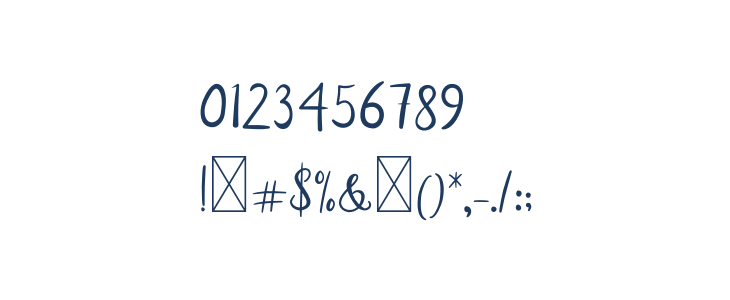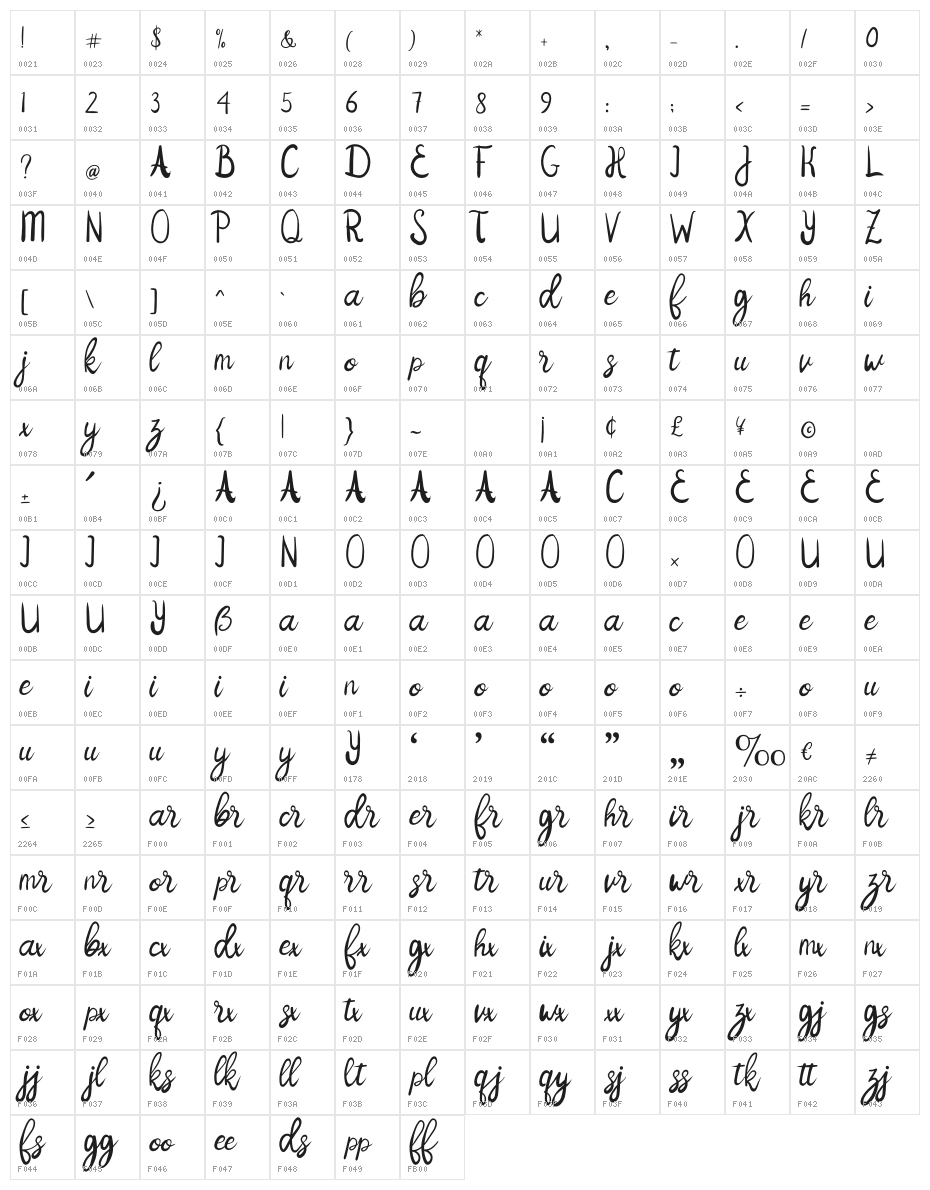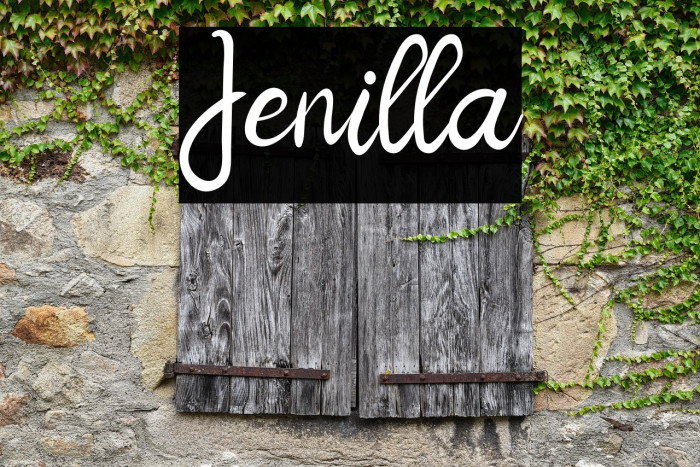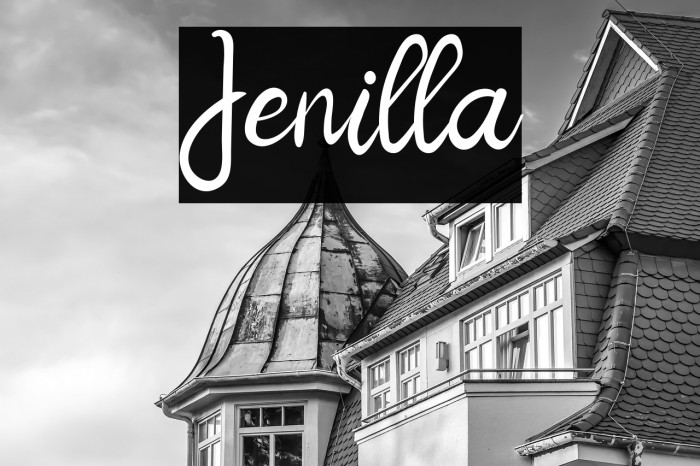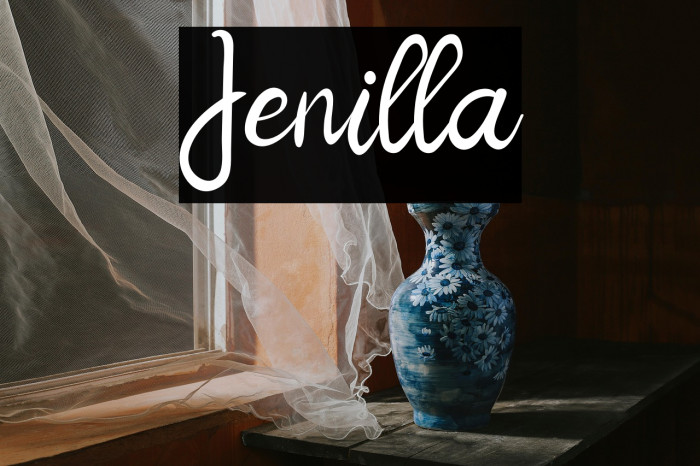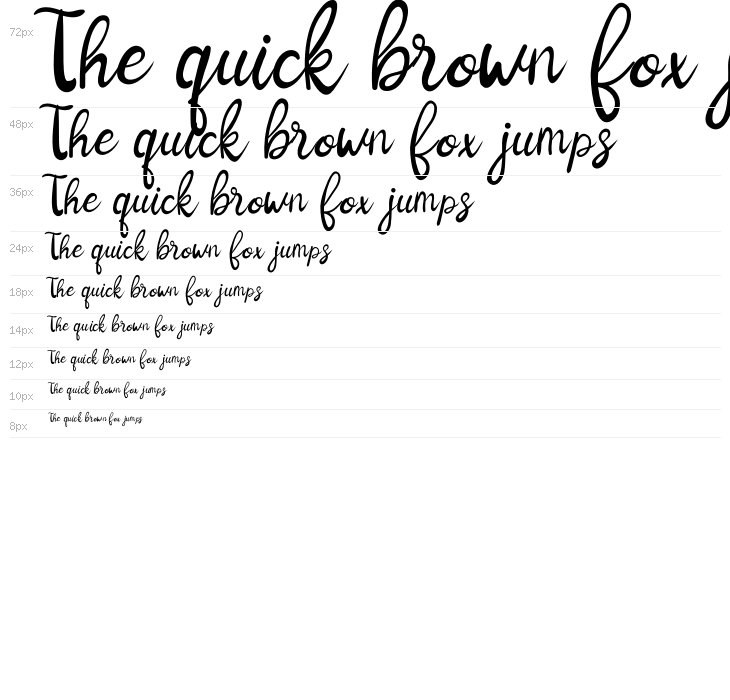
Jenilla Font
Jenilla Description
This font features a playful and flowing script style with a handwritten appearance. The uppercase letters are bold and slightly slanted, giving a sense of movement and energy. The lowercase letters are more fluid, with loops and curves that enhance the casual, friendly feel. The numerals are consistent with the overall style, maintaining the same playful and dynamic characteristics. Special characters are creatively integrated, matching the whimsical aesthetic. This font is ideal for projects that require a personal touch, such as invitations, greeting cards, or branding materials that aim to convey warmth and approachability.
| Overall Style | Playful, Casual |
| Use Case | Headlines, Invitations, Greeting Cards |
| Proposed Projects | Ideal for invitations, greeting cards, personal branding, and creative projects needing a warm, approachable feel. |